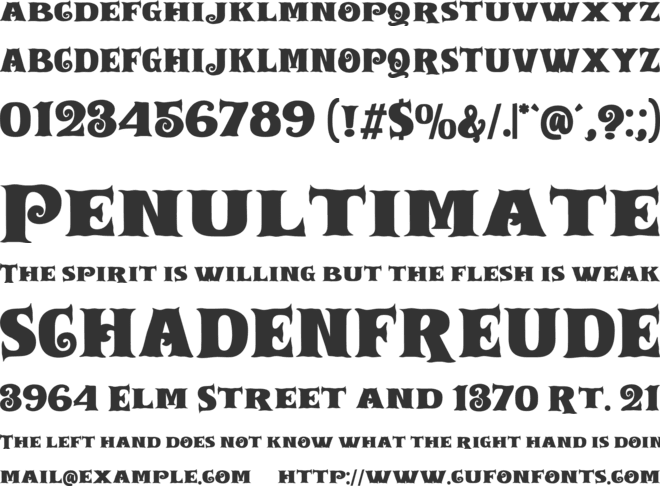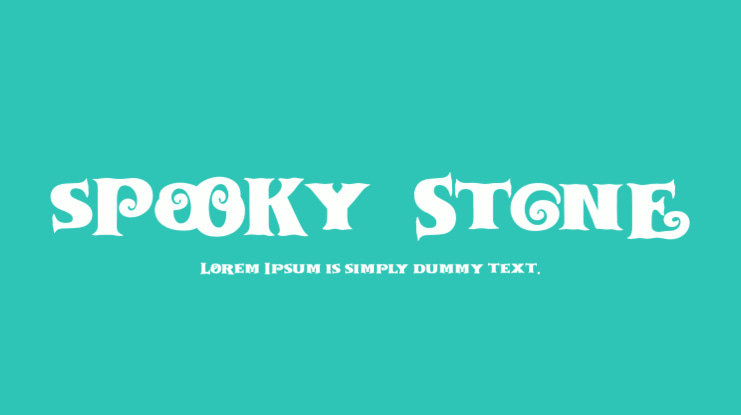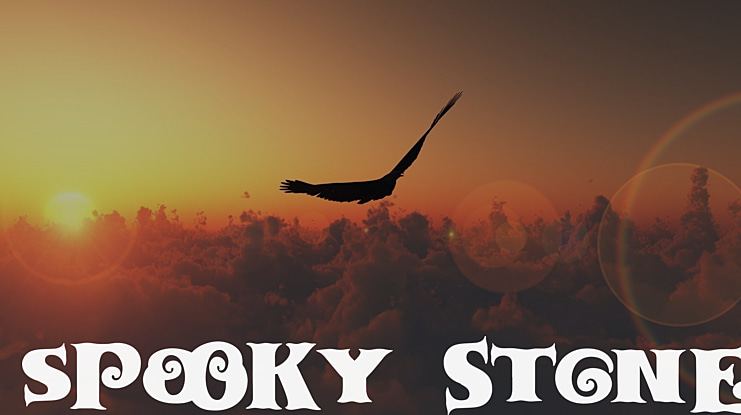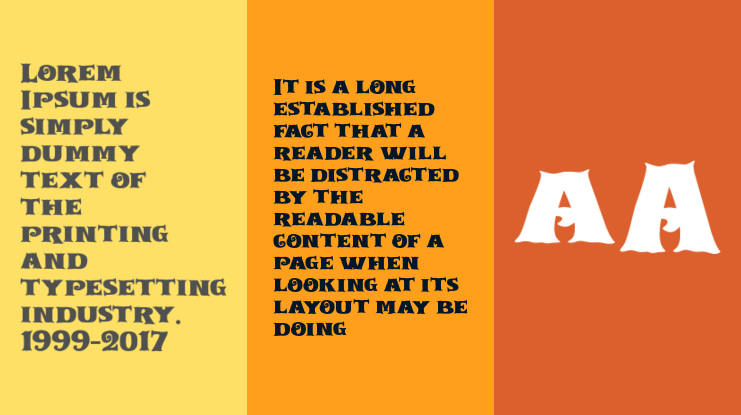
Spooky Stone Font
Introducing Spooky Stone, an exciting and whimsical font duo (display and dingbats) that embraces a thrilling horror concept. Meticulously crafted to captivate and enchant, this font is poised to elevate your creative projects to new heights!
Spooky Stone boasts PUA encoding, ensuring effortless access to all the unique glyphs and decorative swirls!